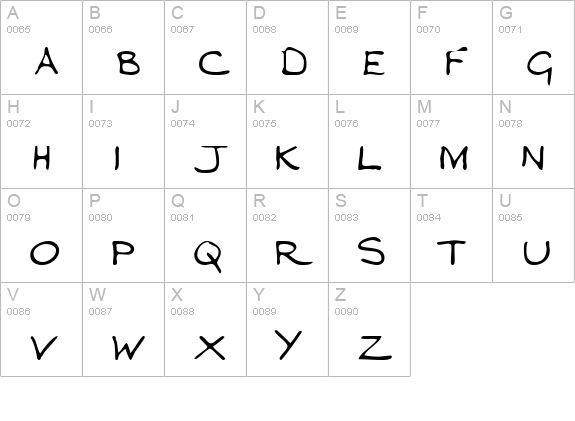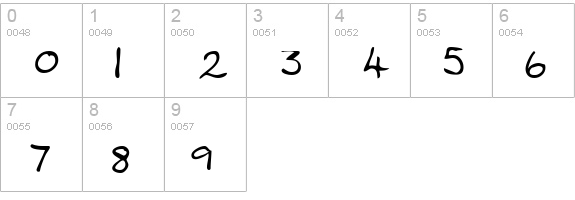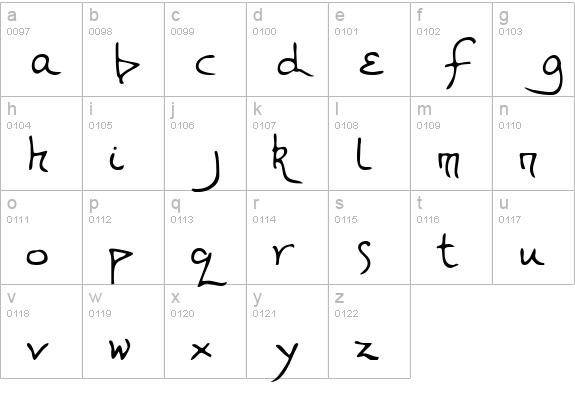
ValeriesHand Font Details
ValeriesHand font is a delightful and whimsical typeface that brings a touch of artistry to any design project. With its elegant and flowing strokes, this font captures the essence of handwriting with a unique flair. Whether you're designing wedding invitations, greeting cards, or crafting a personal blog, ValeriesHand font is the perfect choice to add a touch of charm and personality. What sets ValeriesHand font apart is not only its exquisite design but also the fact that it is completely free. That's right, you can download ValeriesHand font without spending a penny. It's freely available to download at FontsMarket.com, making it accessible to anyone in need of a beautiful and expressive font. ValeriesHand font is a versatile typeface that works well in both large and small sizes. It is easily legible, making it suitable for a wide range of projects. Its refined yet playful appearance adds a touch of elegance to headlines, while its clear and crisp letterforms ensure readability in body text. This font is designed with attention to detail, featuring carefully crafted ligatures and alternate characters that allow for endless creative possibilities. Whether you want to create a logo that stands out or add a personal touch to your next project, ValeriesHand font enables you to do so with ease. With its free availability and exceptional design, ValeriesHand font is a must-have for designers, artists, and anyone looking to add a touch of artistic flair to their work. Download ValeriesHand font today from FontsMarket.com and unlock the limitless potential of this beautiful typeface.